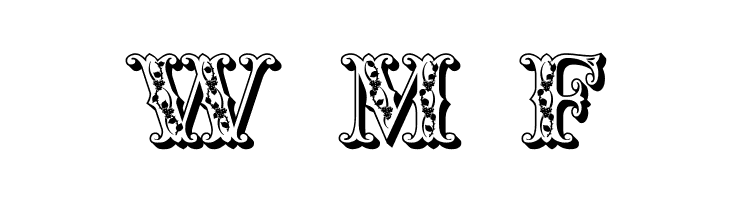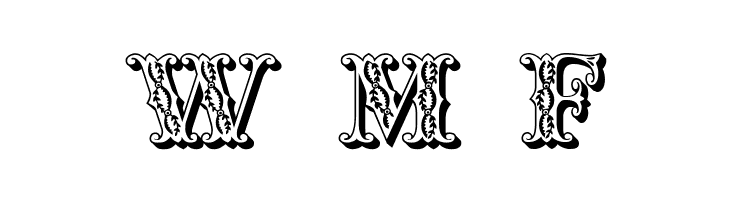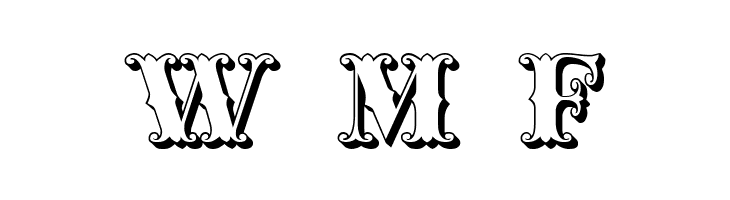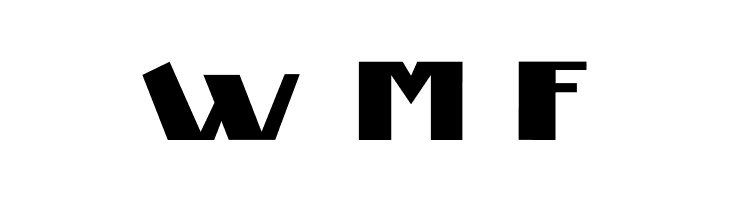
A bold, modern sans-serif font with geometric lines and medium contrast.
An ornate, high-contrast decorative font with vintage flair.
An ornate and decorative font with intricate detailing and vintage flair.
An ornate and decorative font with vintage, theatrical flair.
An ornate, vintage-style decorative font with intricate detailing.
An ornate and decorative font with intricate detailing and vintage charm.
A bold, modern font with dynamic strokes and geometric elements.
A bold, geometric font with a modern, artistic style.
A bold, geometric font with sharp edges and high contrast.